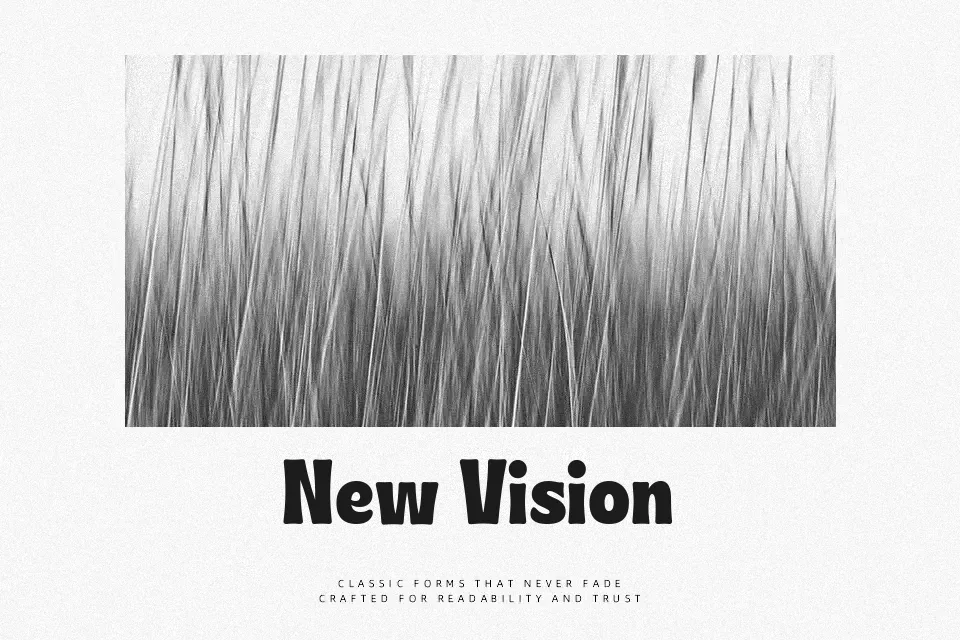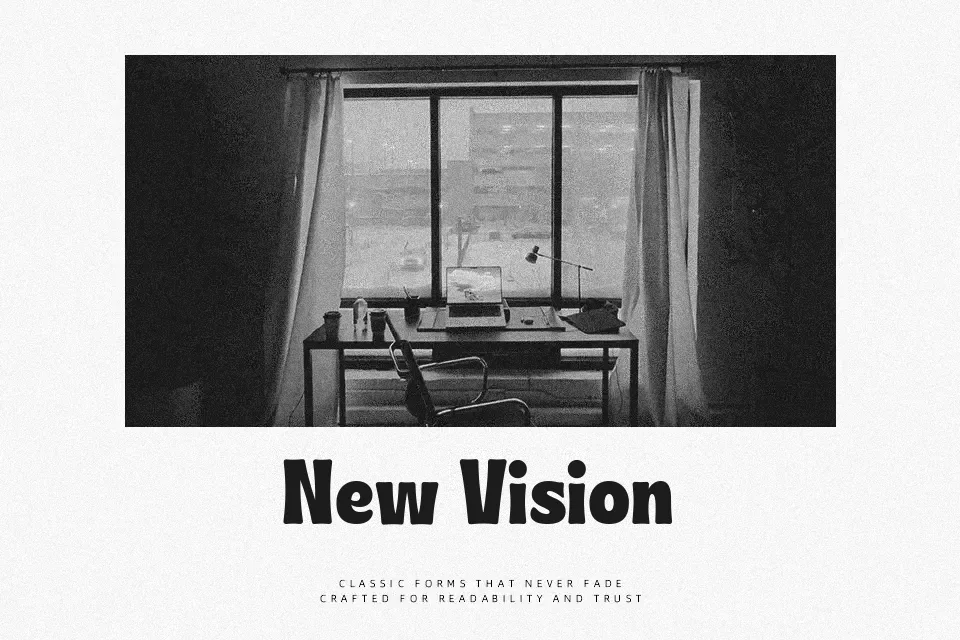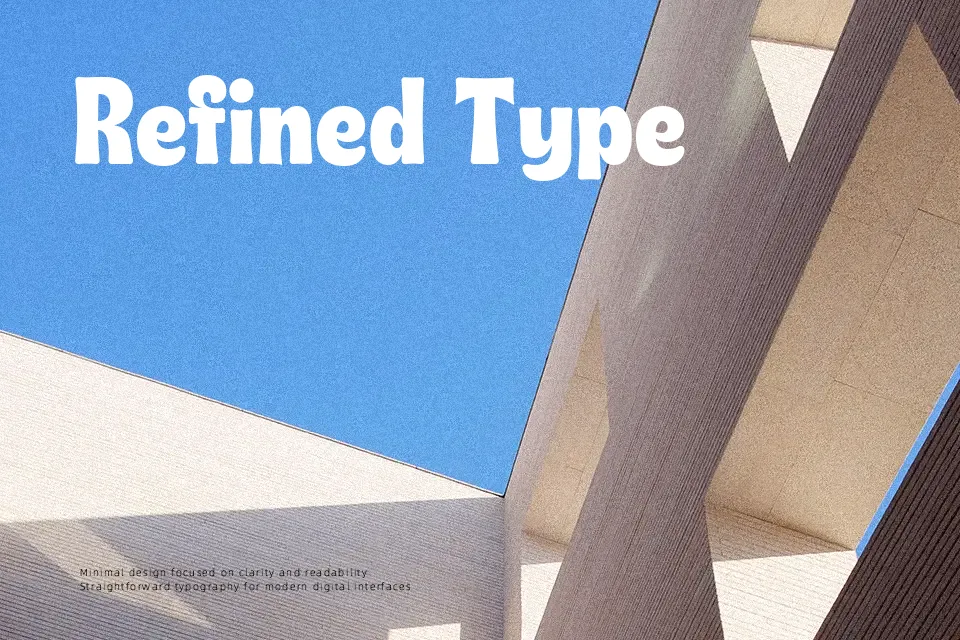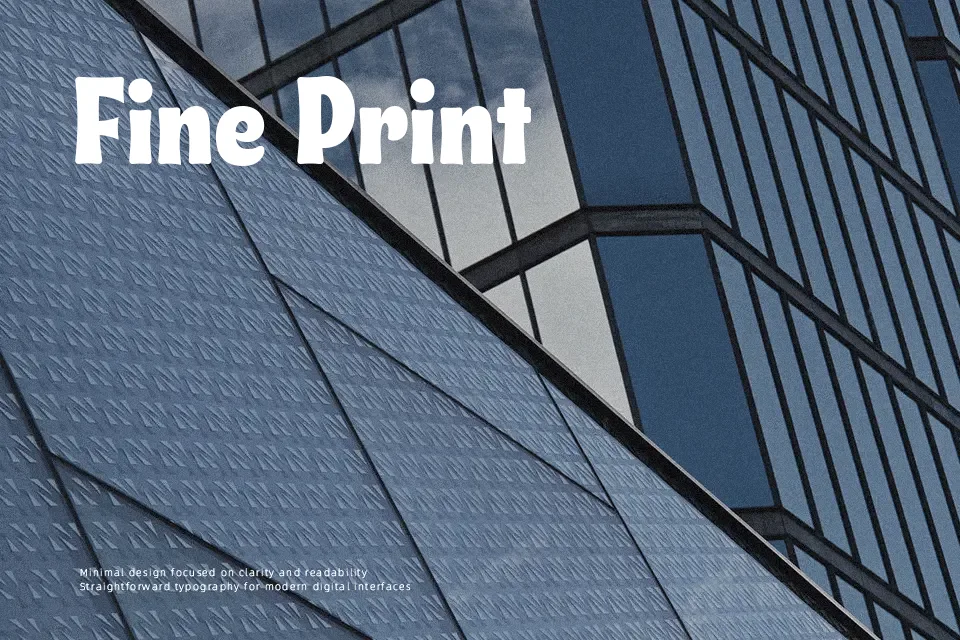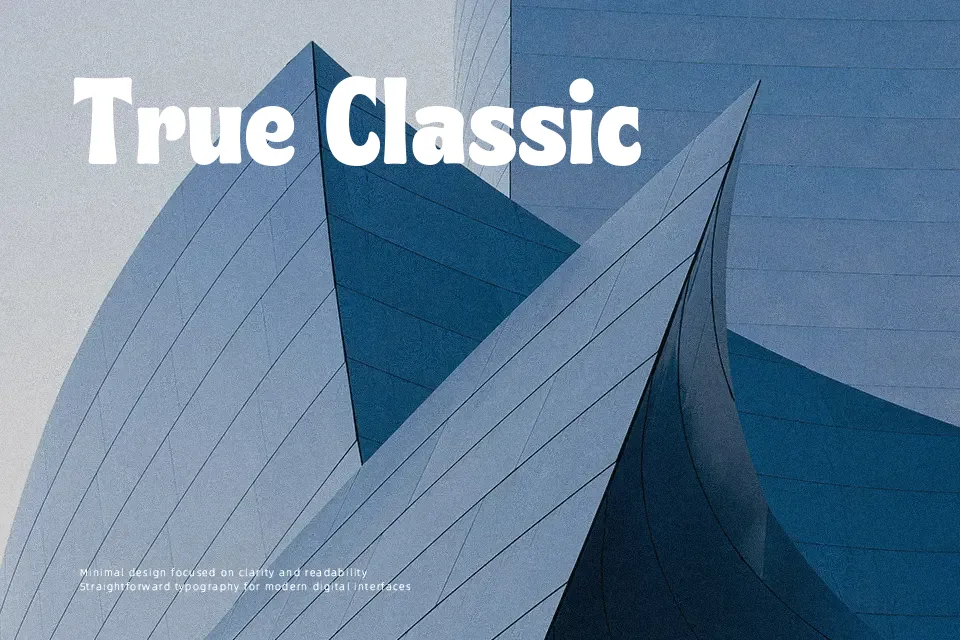
Qortilla Font
This typeface performs best when displayed at larger sizes, making Qortilla Font a commanding choice for prominent design layouts. The letterforms feature distinctive flared serifs that gradually widen at the terminals, creating a sophisticated balance between traditional structure and modern flair. With moderate stroke contrast and balanced spacing, the characters maintain a sturdy yet elegant visual rhythm. The spacing helps maintain clarity in larger headlines and logo marks. However, these same decorative details become less effective at smaller sizes, as the flared strokes can bleed together and reduce comfort during extended reading. It is highly recommended for packaging and editorial titling rather than continuous paragraph text.
editorial headlines, boutique product packaging, sophisticated brand logos
continuous paragraph text, small interface labels, dense editorial layouts
Perfect for branding, editorial, and headline, with a classic and decorative style.